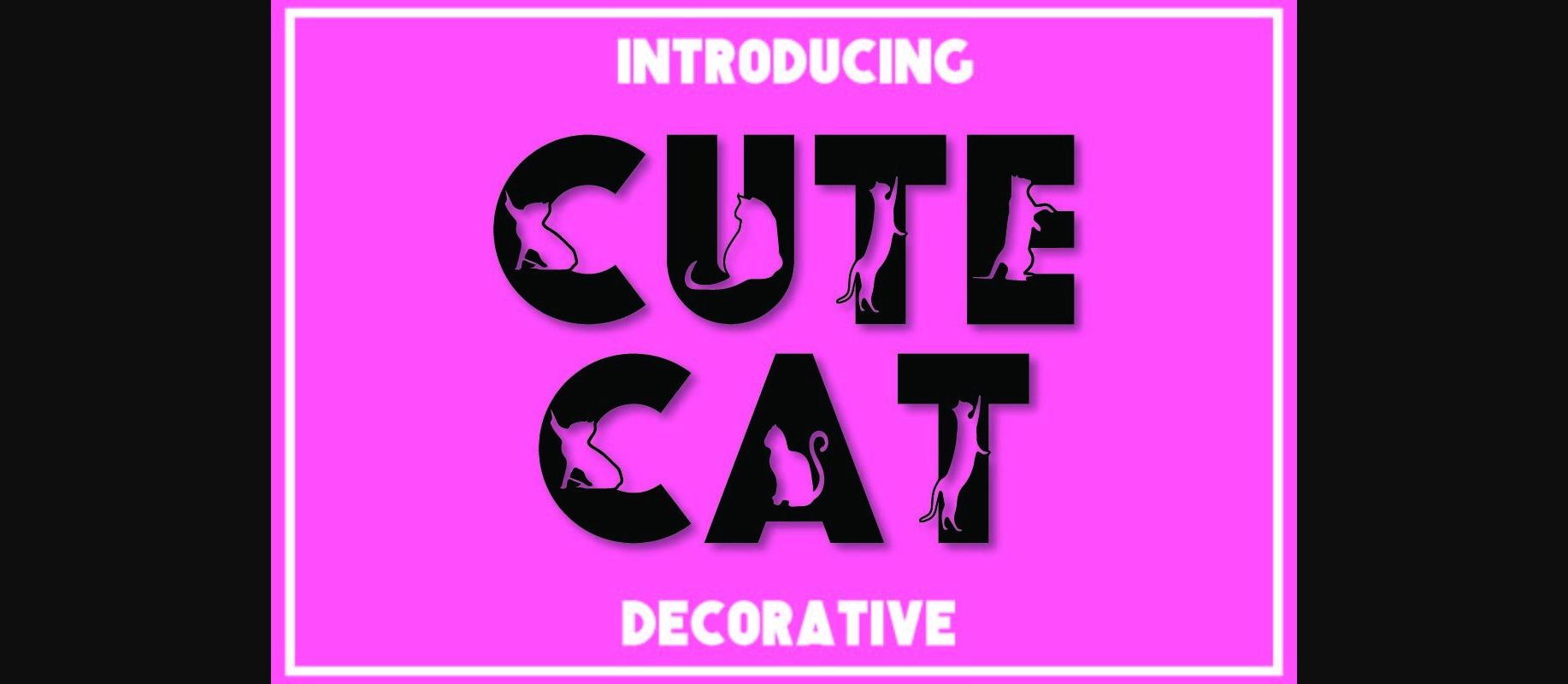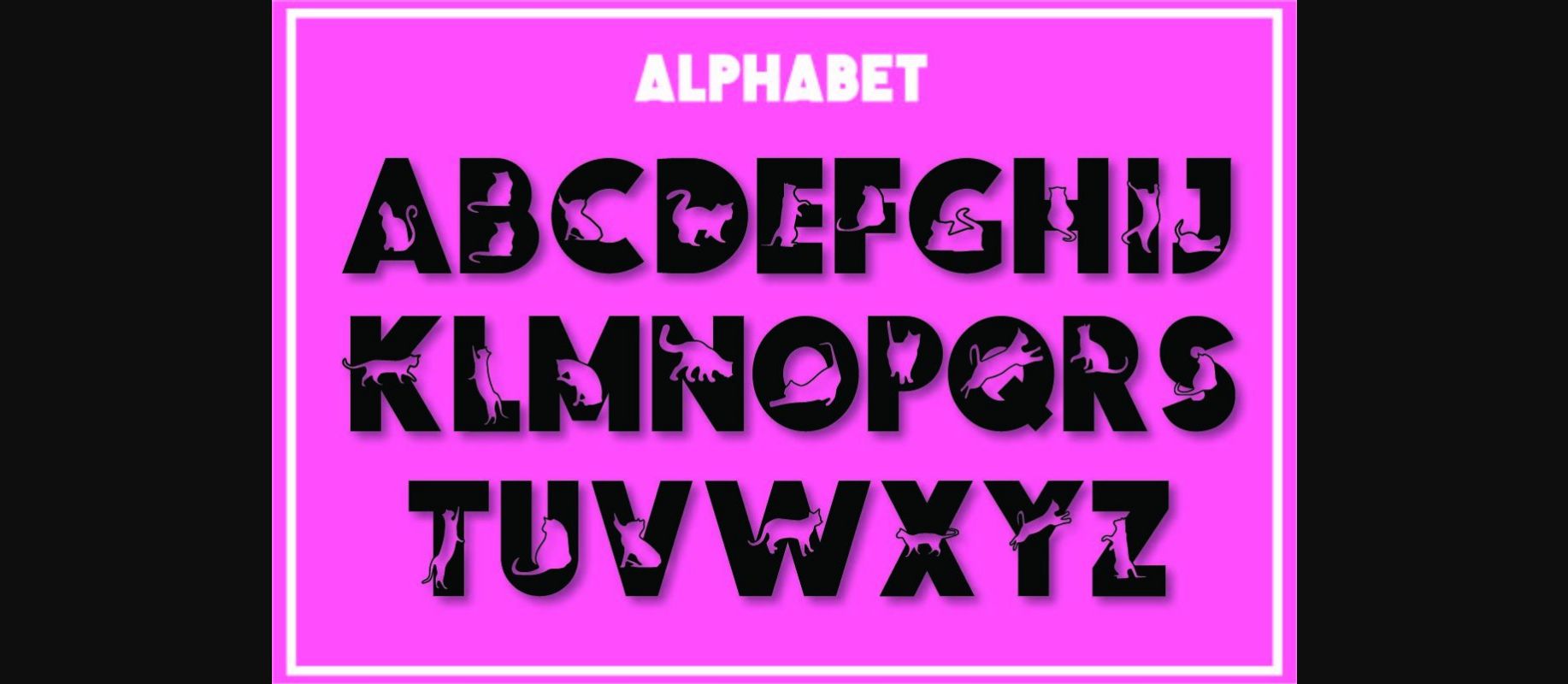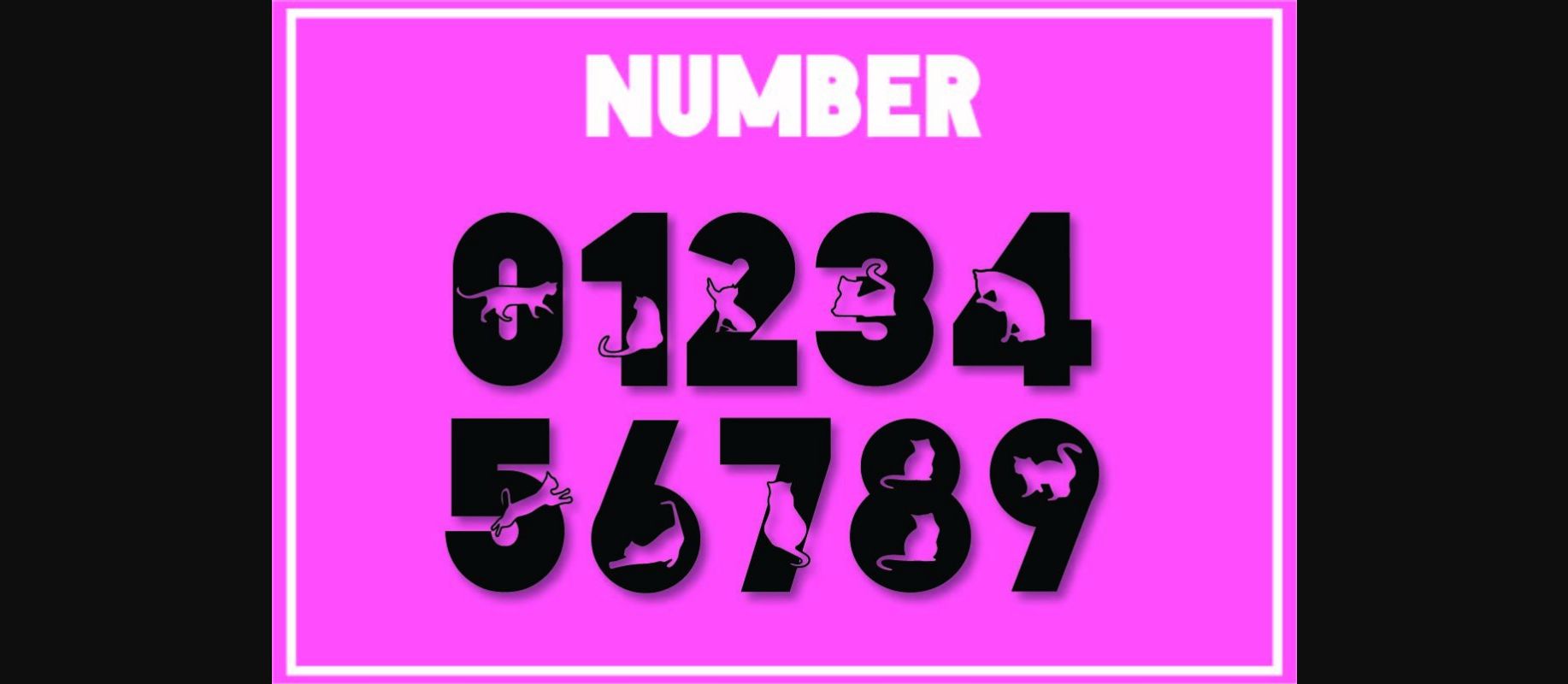
HomeDecorative FontsCute Cat Font Decorative Fonts Cute Cat Font FacebookXPinterestWhatsApp 1 of 5 ... Cute Cat Font Poster 2... Cute Cat Font Poster 3... Cute Cat Font Poster 4... Cute Cat Font Poster 5... About Cute Cat Font Cute Cat is a cute and lovable decorative font. It embodies fun and authenticity and is the perfect choice for children’s activities, crafts or t-shirt designs. DOWNLOAD NOW People also explored Friday Vibes Font Armstrong Font Natalia Font Franklin Font Southland Acakadul Font Snowy Christmas Monogram Font Flanela Monicha Font Split Rose Flower Monogram Font 466 0 TagsCute Cat Font Previous articleShiny Christmas Monogram FontNext articleChannel Font LEAVE A REPLY Cancel reply Comment: Please enter your comment! Name:* Please enter your name here Email:* You have entered an incorrect email address! Please enter your email address here Website: Save my name, email, and website in this browser for the next time I comment. Personal Use Free Bosque Font Personal Use Free Read more about this font Rhetorical Personal Use Free Read more about this font Amillina Monogram Personal Use Free Read more about this font Droid Personal Use Free Read more about this font BLOG Fonts That Capture the Spirit of New York City New York City is more than just a place—it’s an experience, a rhythm, a visual language... Best Fonts for T-Shirt Design – Top 2025 Picks Free vs Paid Fonts: Why Investing in Premium Fonts Is Worth It Top 7 Google Fonts Alternatives for Faster and Privacy-Friendly Web Design (2025)